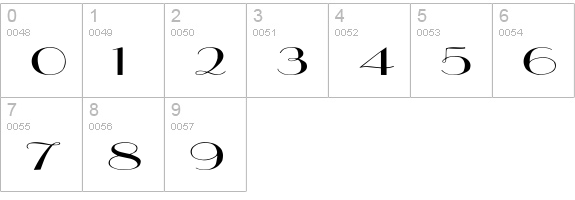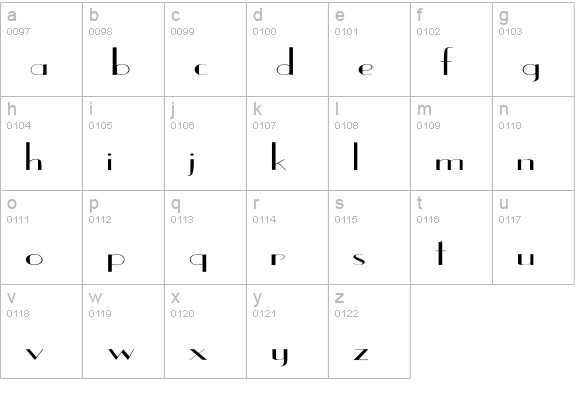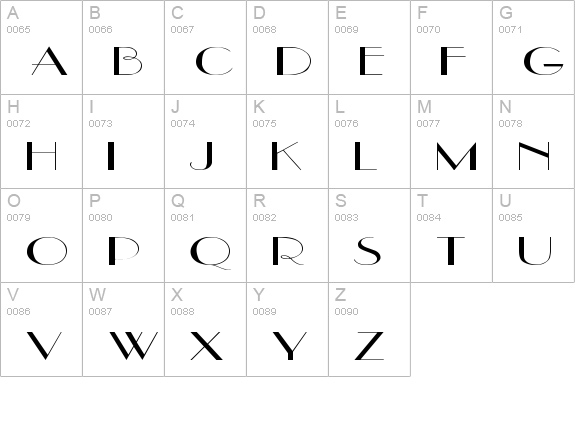
Introducing UppEa Ex, a stunning font that exudes elegance and sophistication. With its sleek and modern design, this typeface is perfect for adding a touch of refinement to any project. UppEa Ex is characterized by its clean lines and sharp corners, which give it a contemporary yet timeless feel. But what sets UppEa Ex apart from other fonts is that it is not only visually appealing, but also free to download. That's right, this remarkable font can be yours without spending a dime. Whether you're a professional designer, a creative enthusiast, or simply someone who appreciates beautiful typography, UppEa Ex is a must-have addition to your font collection. To get your hands on UppEa Ex, simply visit FontsMarket.com, where it is freely available for download. FontsMarket.com is a reputable website that offers a wide range of high-quality fonts, and UppEa Ex is no exception. So why wait? Enhance your designs and elevate your projects with the captivating allure of UppEa Ex—the free font that combines style and accessibility.